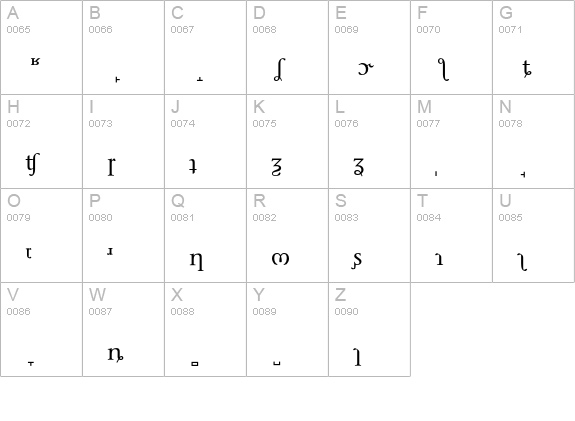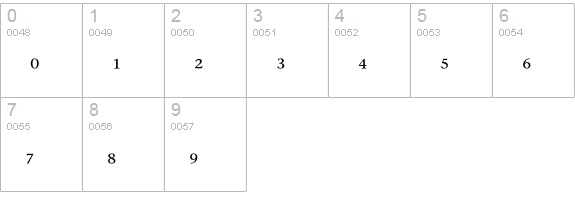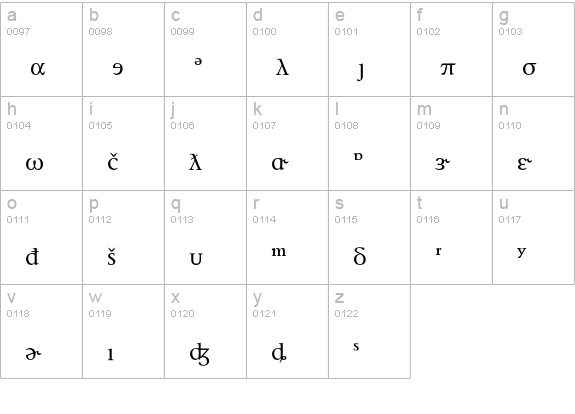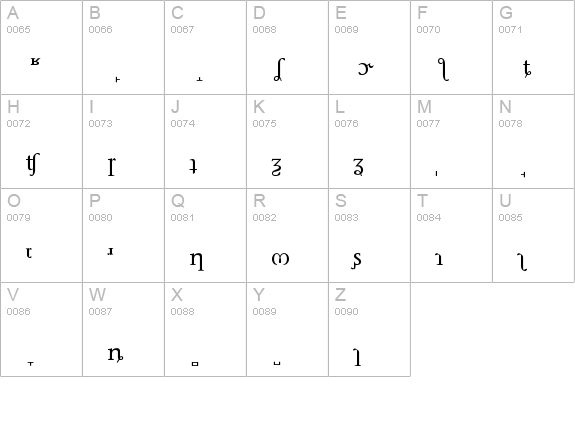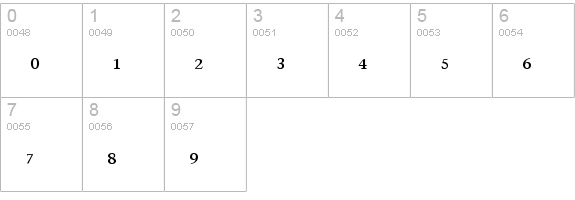
StoneSerifPhonEF-MedPlus is a versatile and elegant font that combines the classic appeal of serif typefaces with a modern twist. Its strong and authoritative presence makes it ideal for various design projects, from editorial layouts to branding materials. The moderate weight of the font strikes a perfect balance between readability and style, making it suitable for both headlines and body text. What sets StoneSerifPhonEF-MedPlus apart is its unique blend of traditional and contemporary design elements, giving it a timeless quality that will ensure it remains relevant for years to come. The precise detailing of each letterform showcases the craftsmanship behind this font, adding a touch of sophistication to any project it is used in. Best of all, StoneSerifPhonEF-MedPlus is available for free download at FontsMarket.com, making it accessible to designers and creatives looking to elevate their work with a high-quality typeface. Don't miss out on the opportunity to add this exceptional font to your collection and enhance your designs with its refined aesthetic and professional finish.